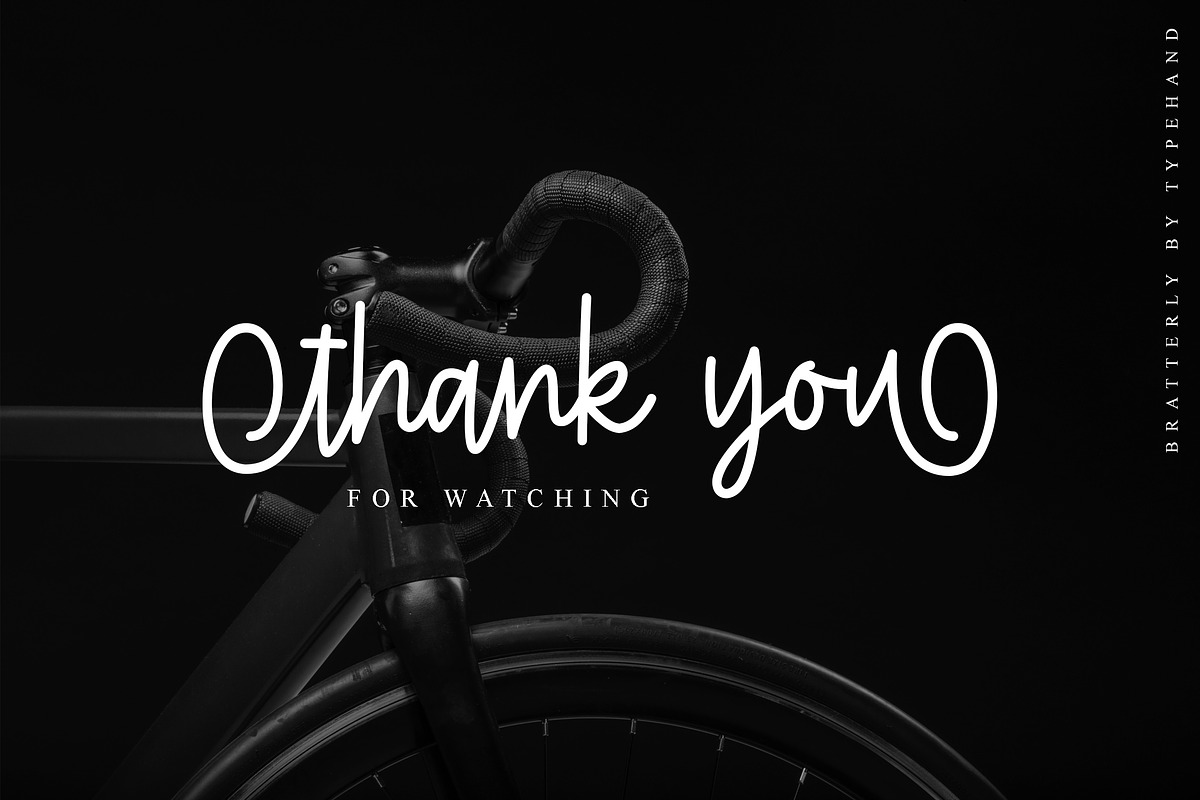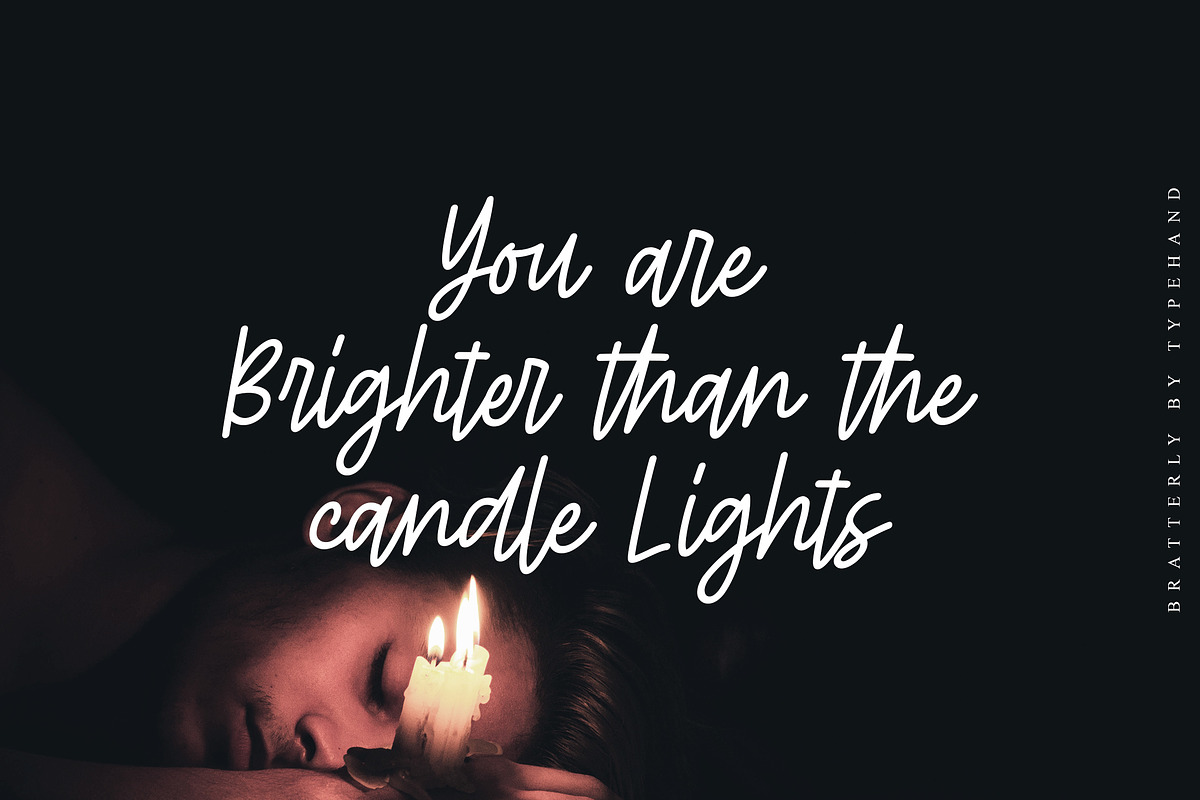
Bratterly - Monoline Script
Introducing: Bratterly is a beautiful handwritten font containing upper & lowercase characters, numerals and a large range of punctuation.
- Family Font & 80 Ligature